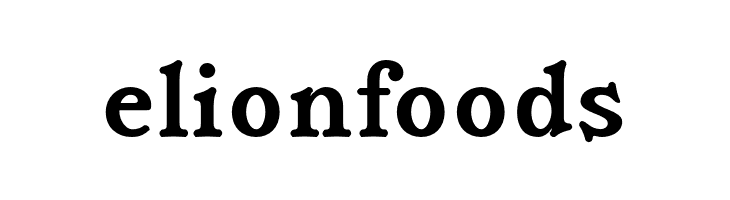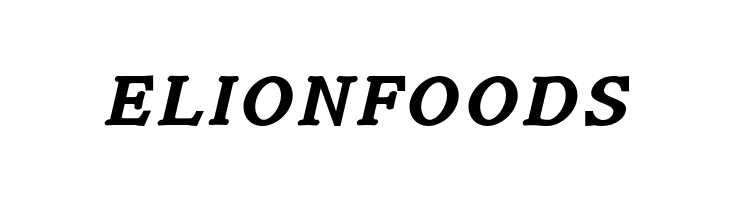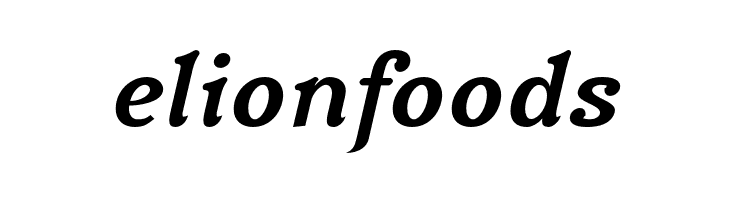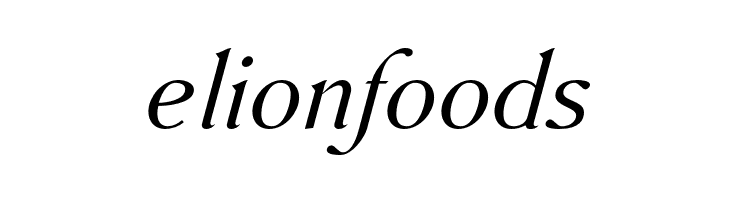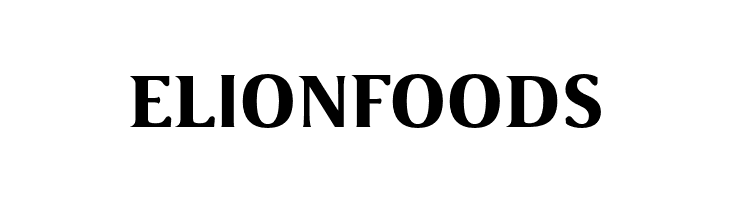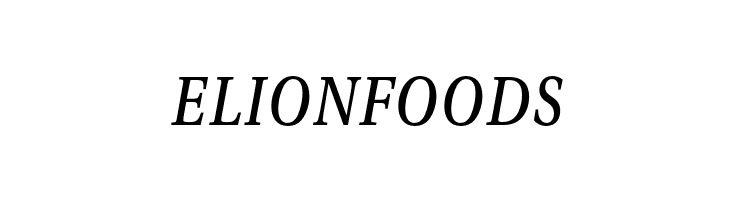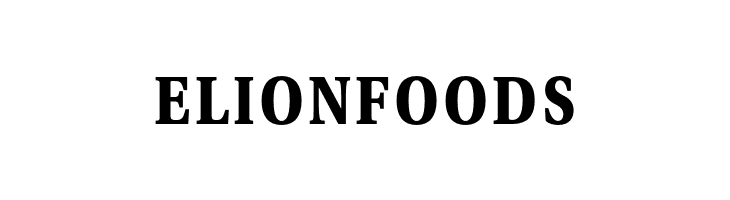
A bold serif font with strong serifs and high contrast, ideal for impactful designs.
A bold, italic serif font with a classic and elegant style.
A bold, italic serif font with a modern and elegant style.
An elegant serif font with a classic italic style and refined serifs.
A bold, serif font with a classic and authoritative style.
A classic serif font with bold strokes and elegant curves.
A bold, condensed serif font with strong, thick strokes and a modern twist.
A classic serif typeface with an elegant italic slant and moderate stroke contrast.
A bold serif font with strong strokes and classic elegance.
A bold, italic serif font with a classic and elegant style.